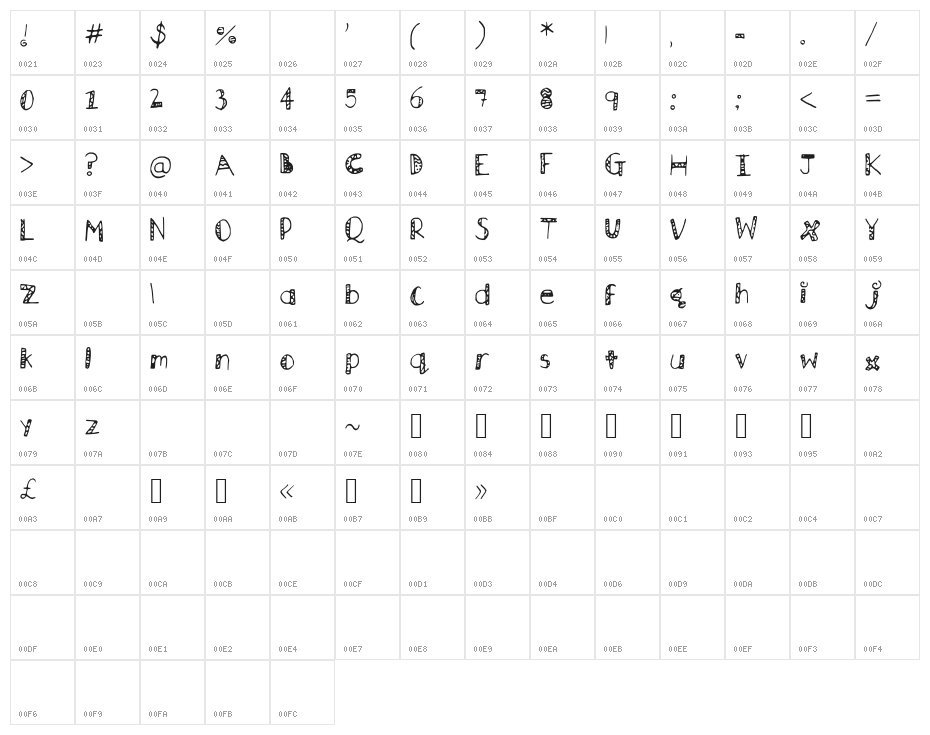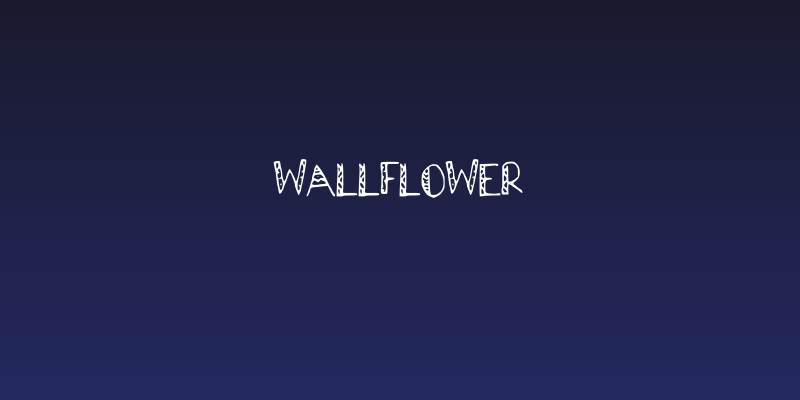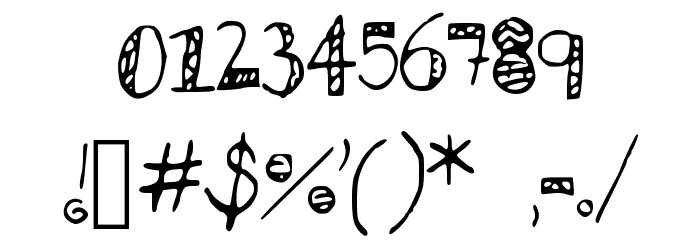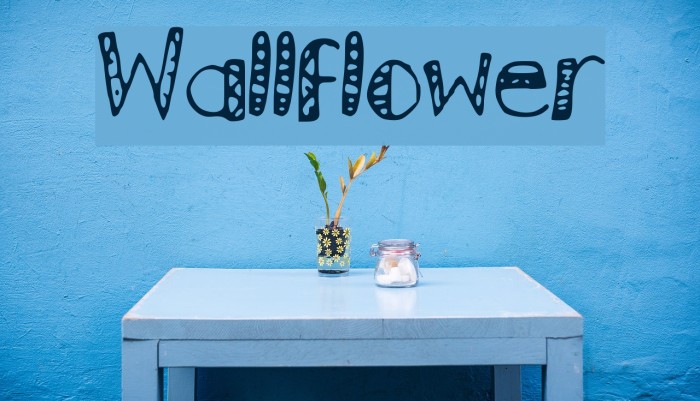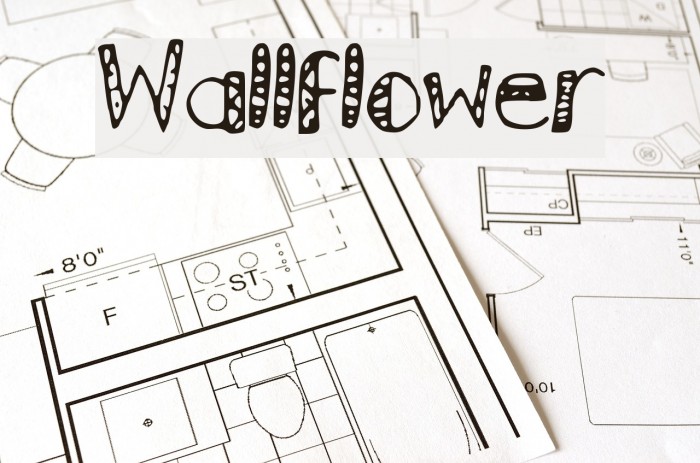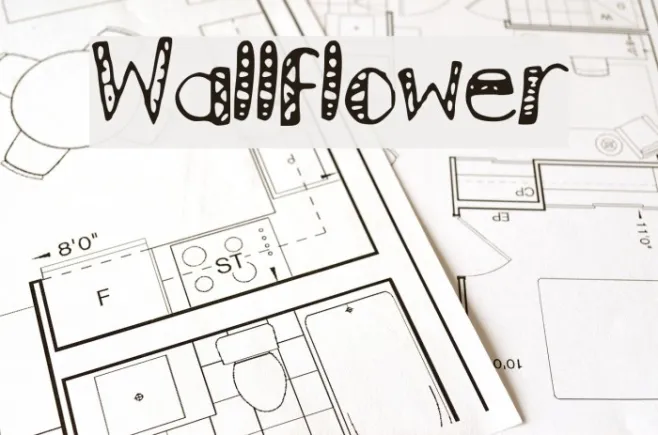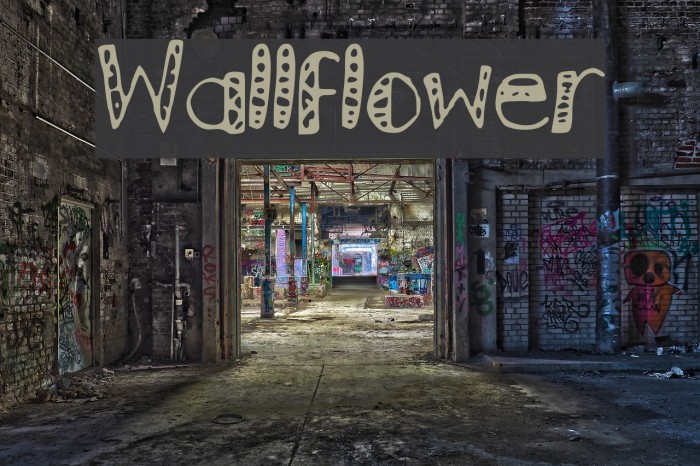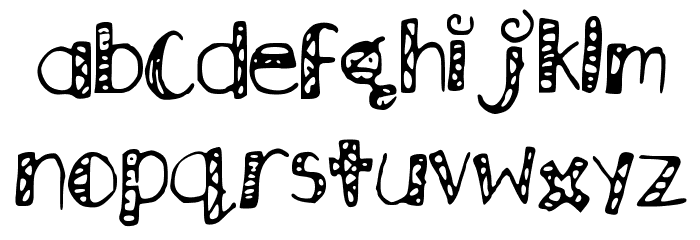
Wallflower Font
Wallflower Description
This playful and whimsical font features a unique hand-drawn style with a decorative flair. Each character is adorned with polka dots, adding a sense of fun and creativity. The letters have an irregular, organic shape, giving them a lively and dynamic appearance. The font includes both uppercase and lowercase letters, numbers, and a variety of special characters, making it versatile for various design needs. Its artistic and informal style makes it perfect for projects that require a touch of personality and charm.
| Overall Style | Whimsical, Playful, Artistic |
| Use Case | Headlines, Logos, Creative projects |
| Proposed Projects | Ideal for children's books, playful branding, party invitations, and creative posters. |